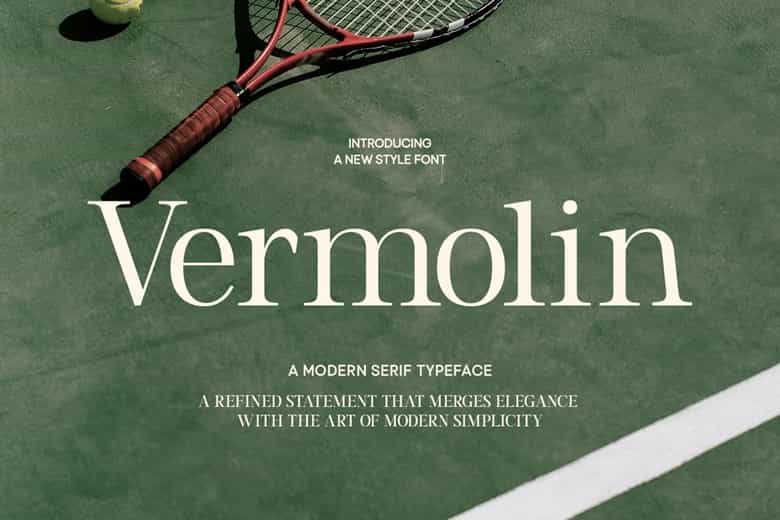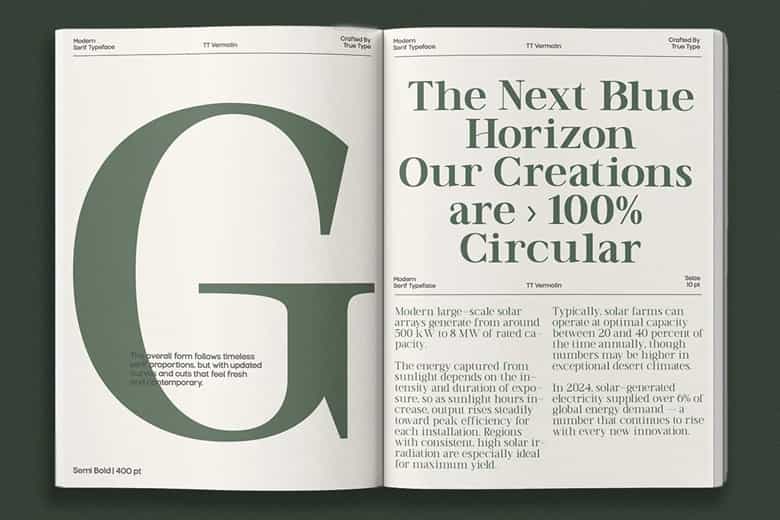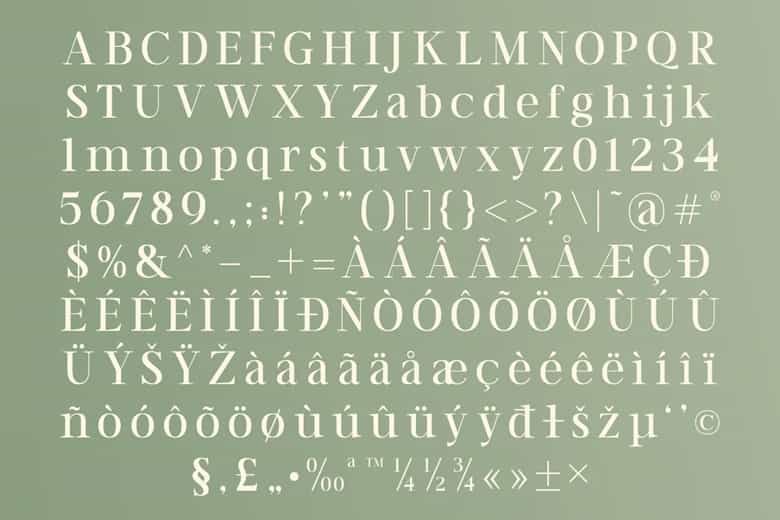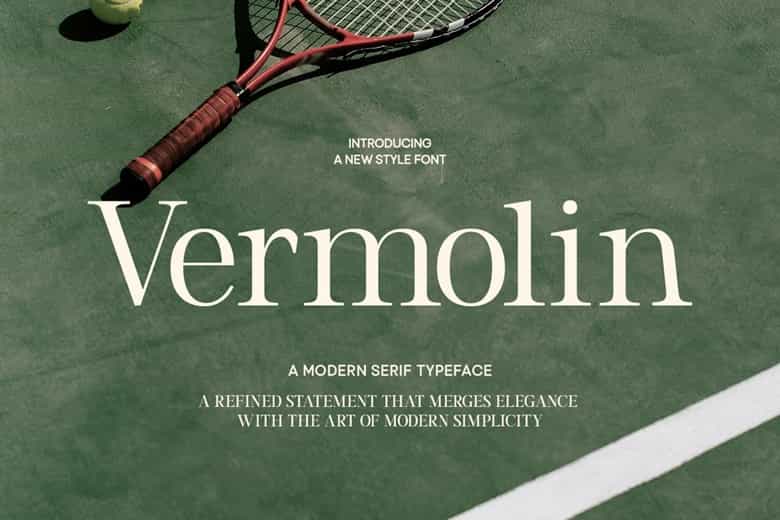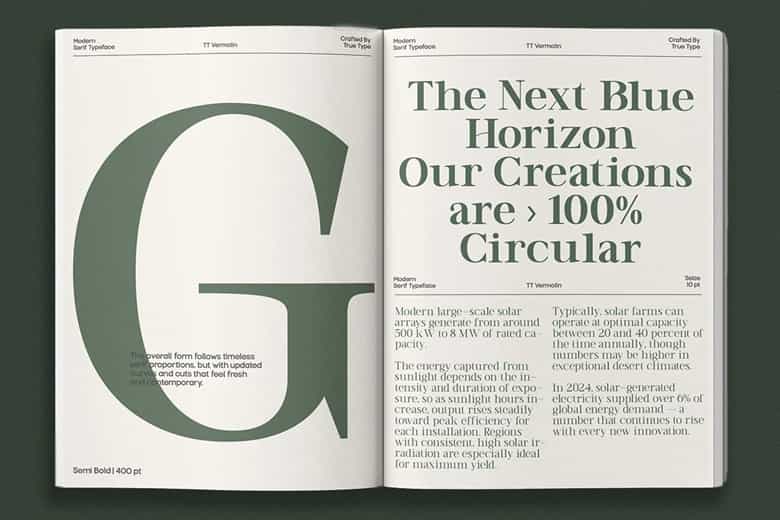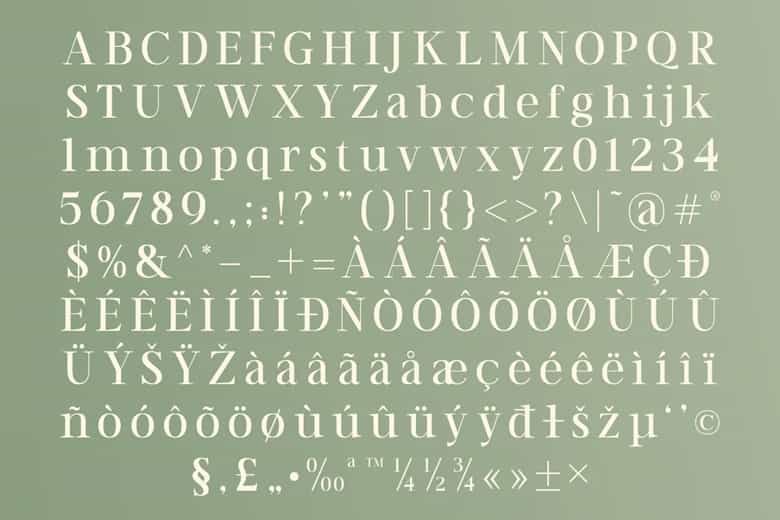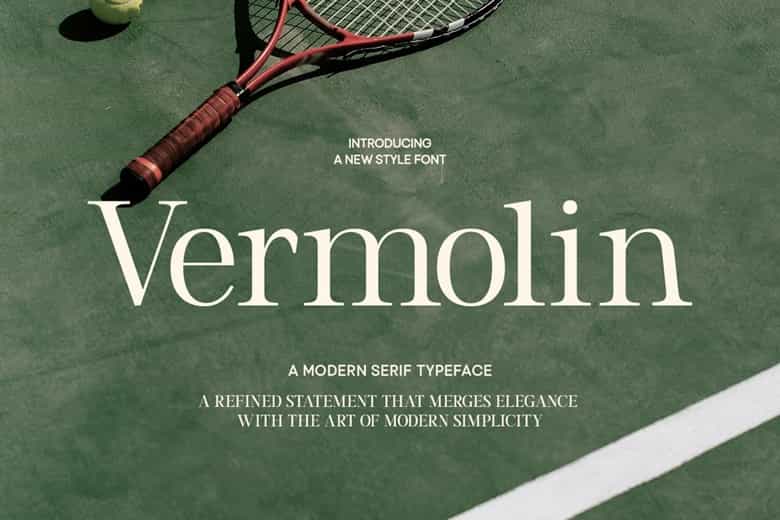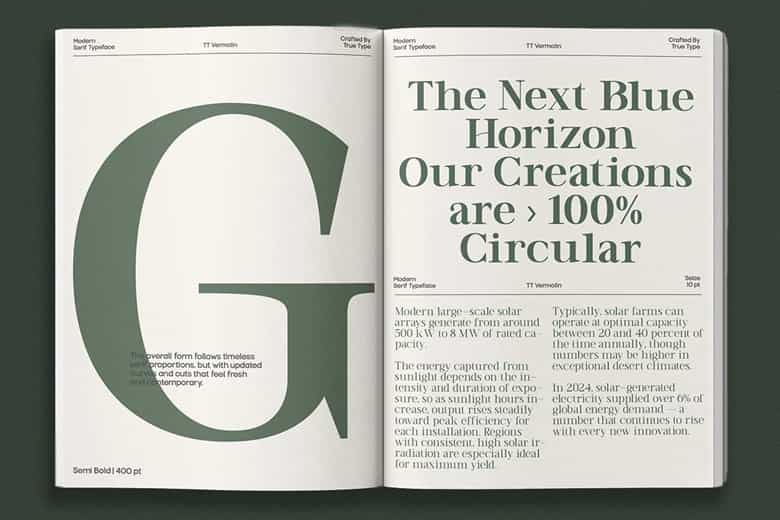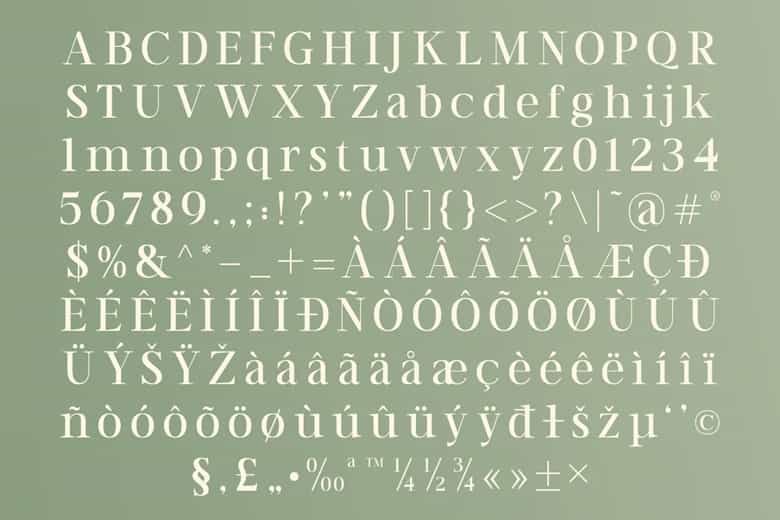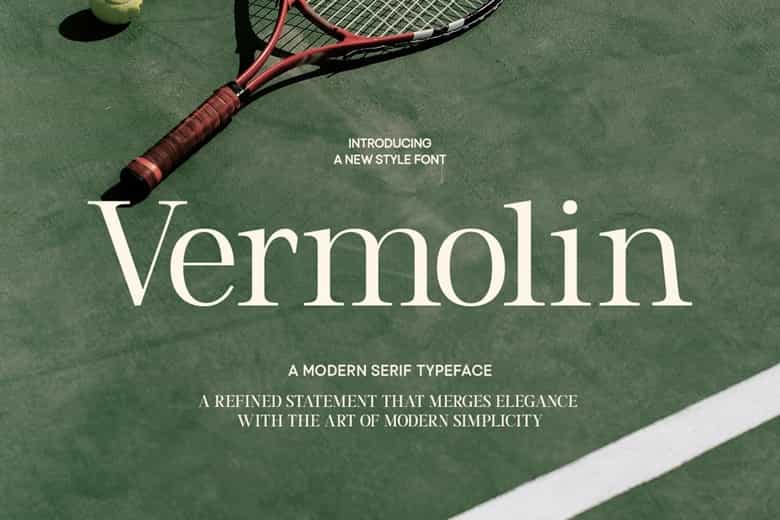
Vermolin is a clean serif font which brings out classic elegance with its dramatic interplays of contrast, strong vertical emphases and sculptural shapes. Cleanly designed with maximum readability but equally maximum impact factor, Vermolin excels within editorial/branding/luxury packaging environments.